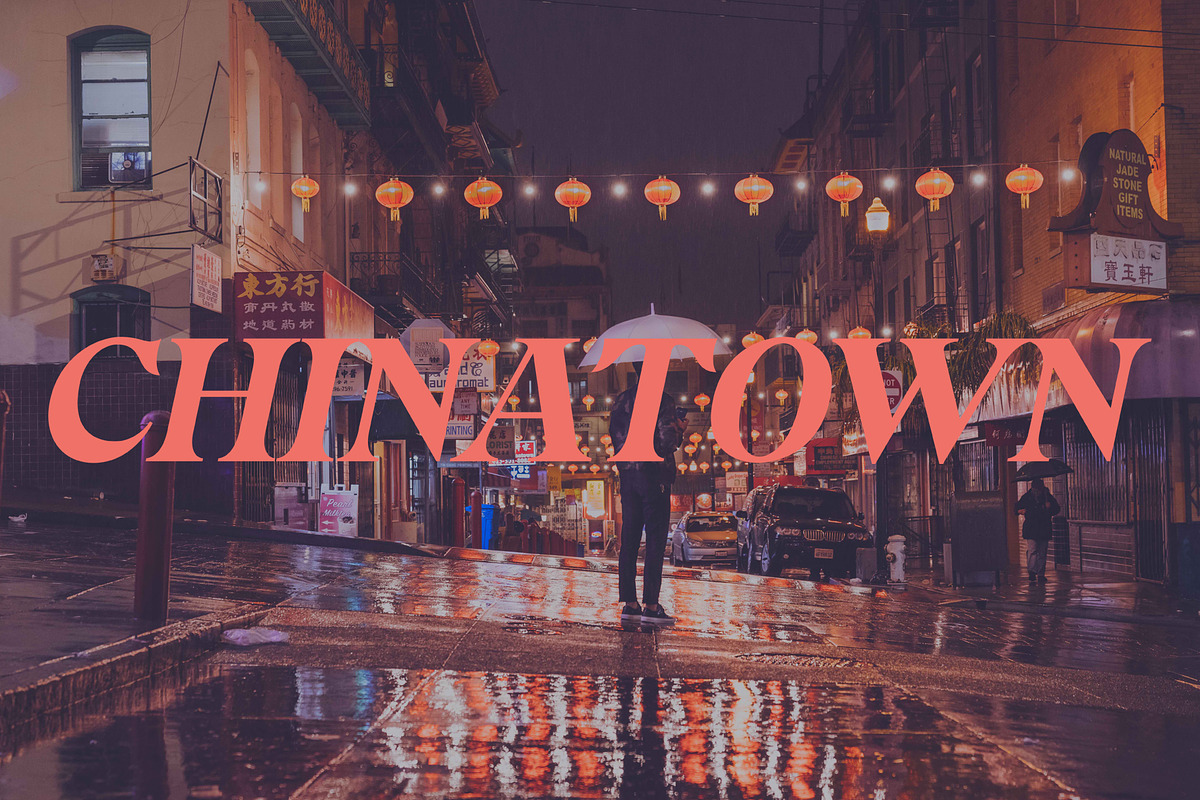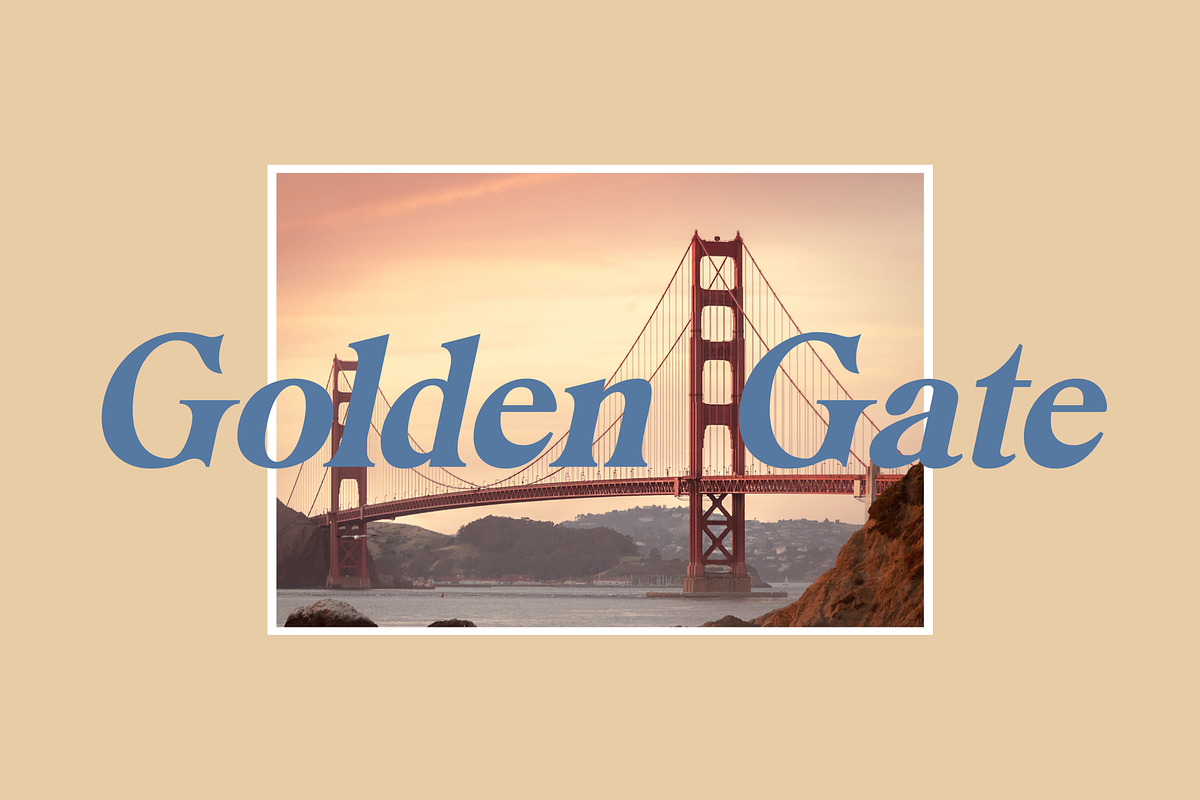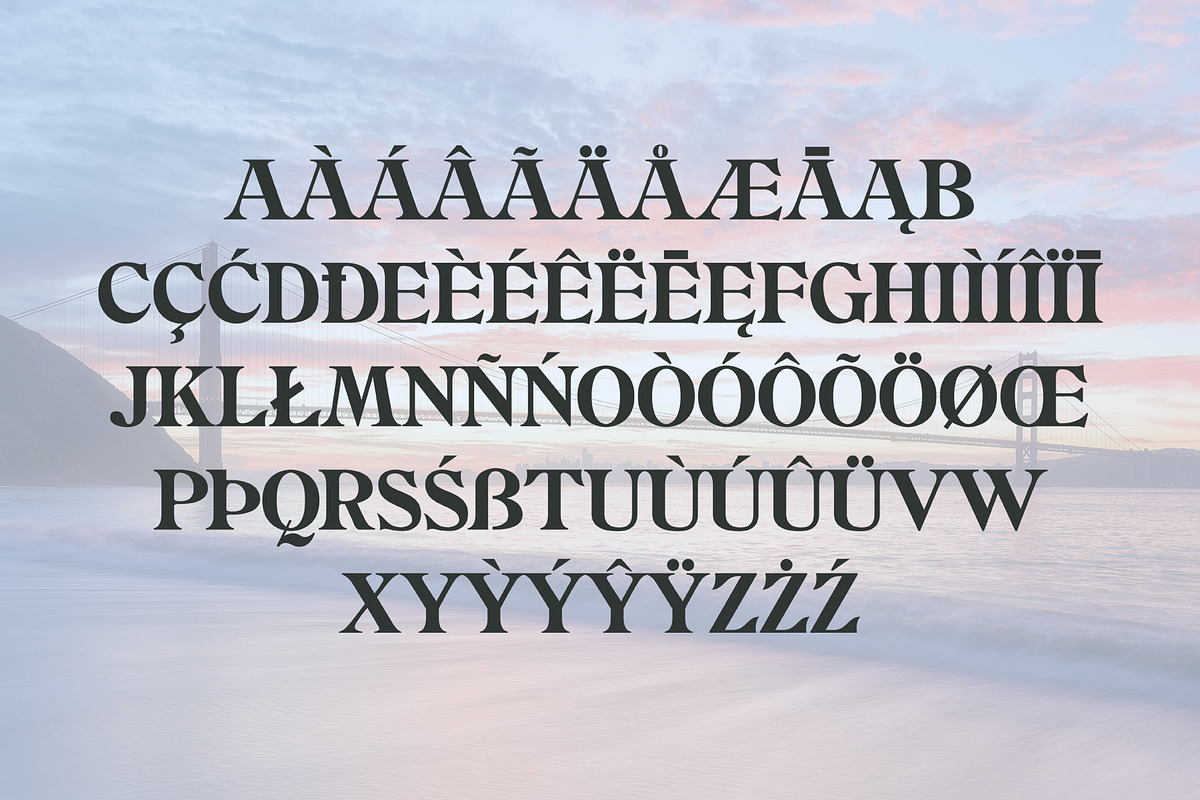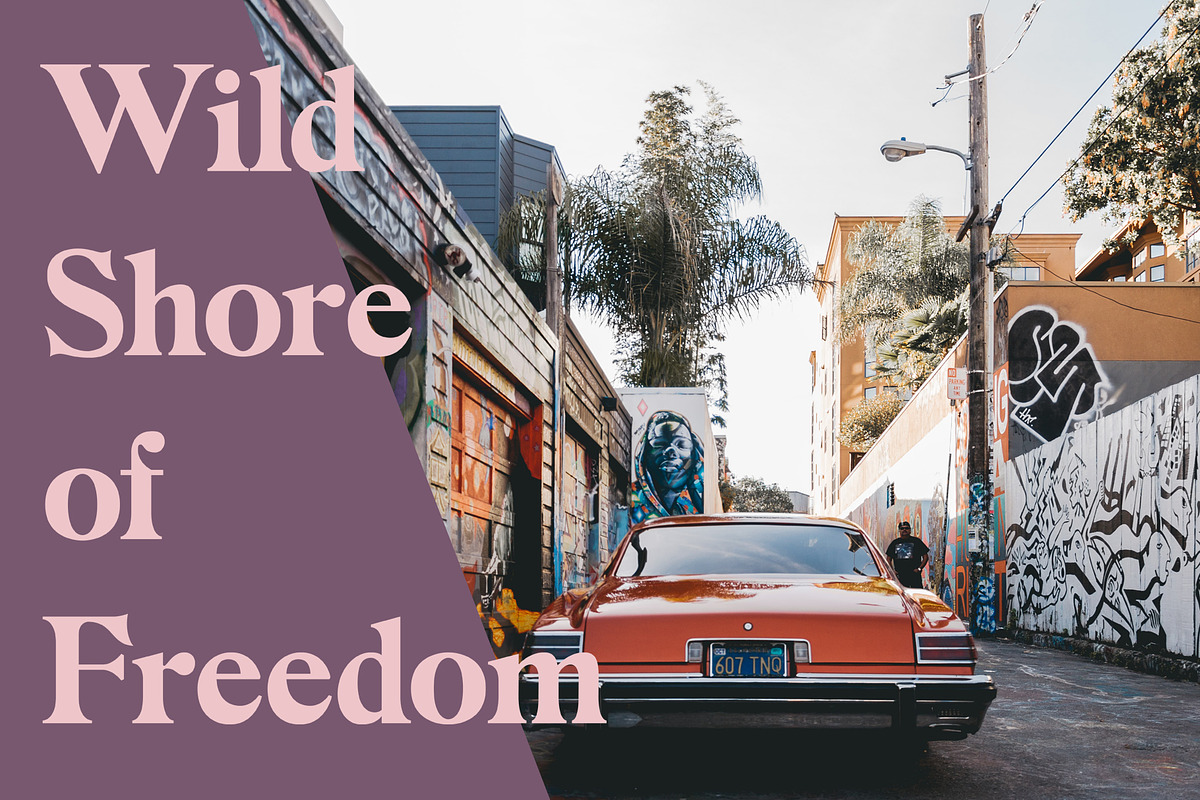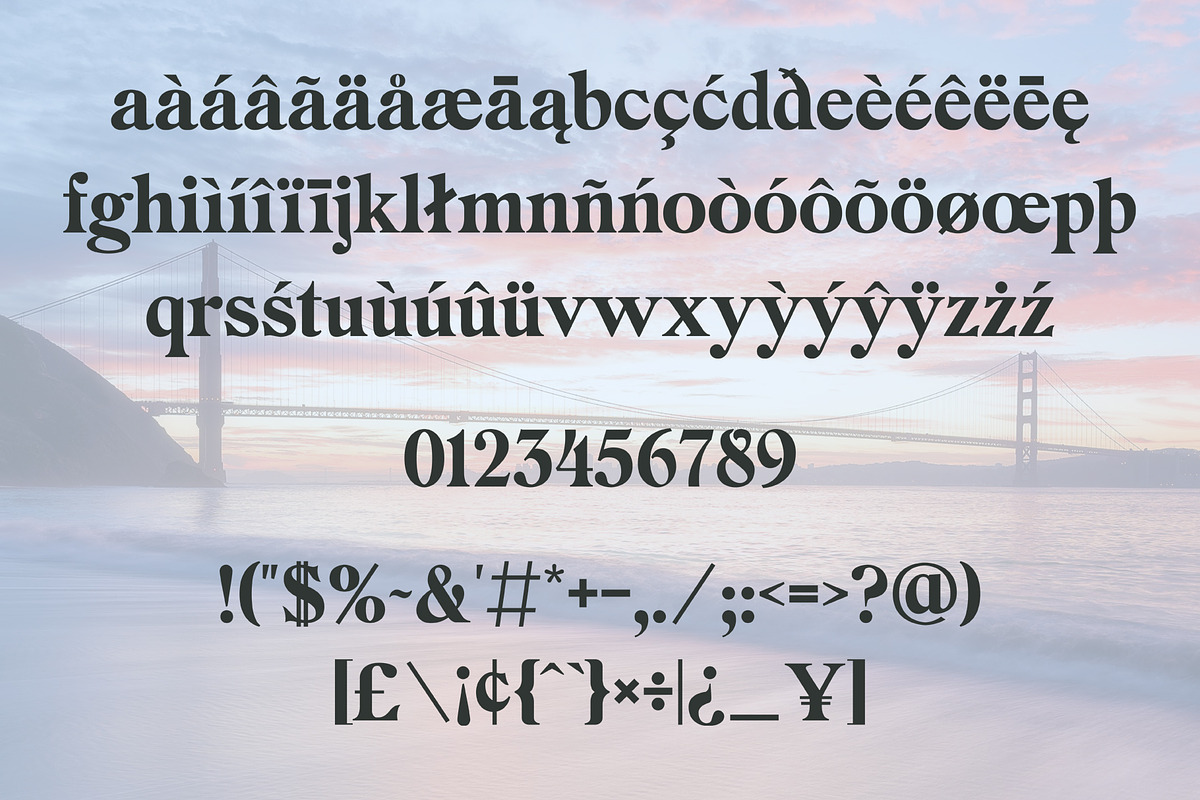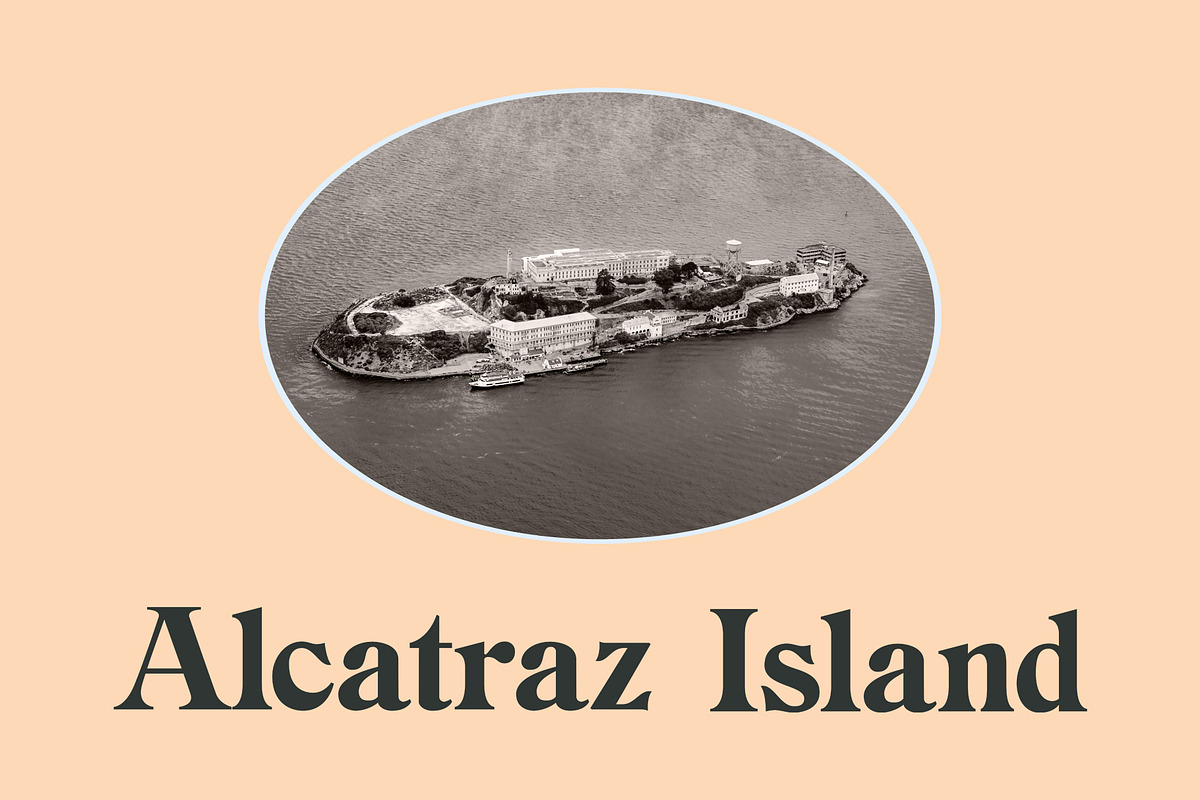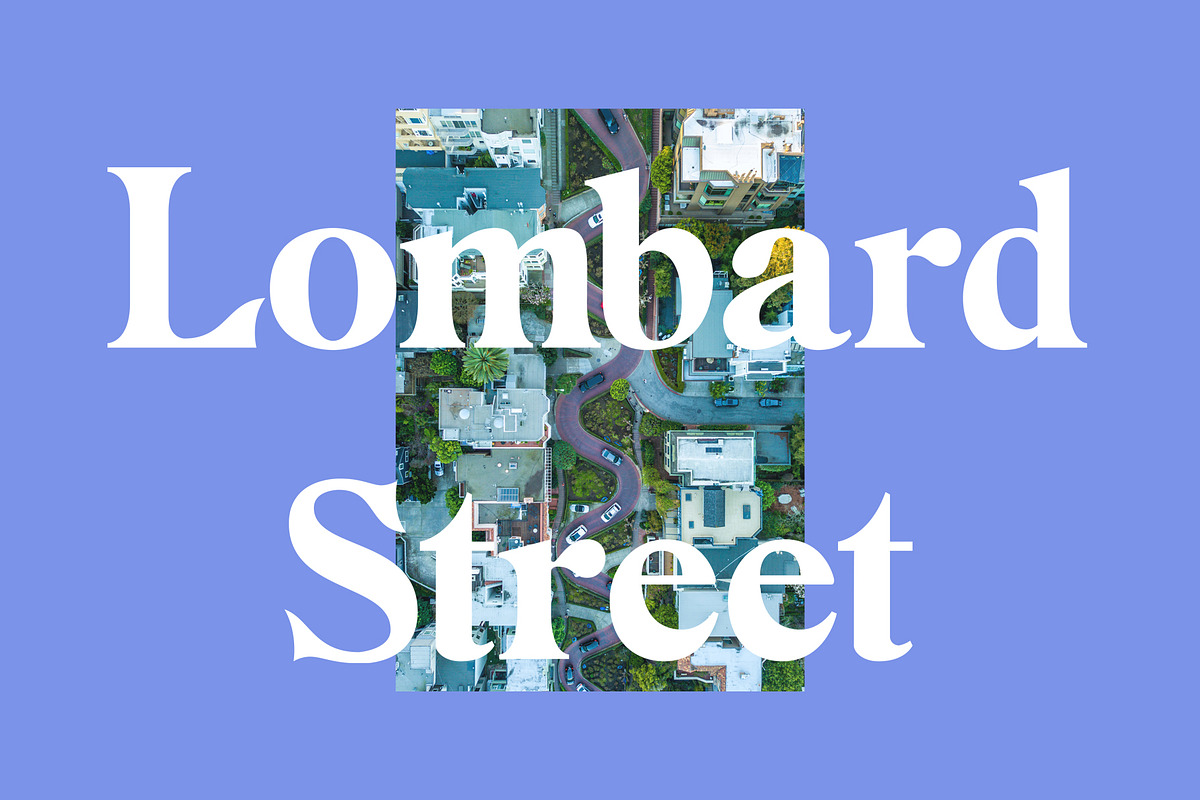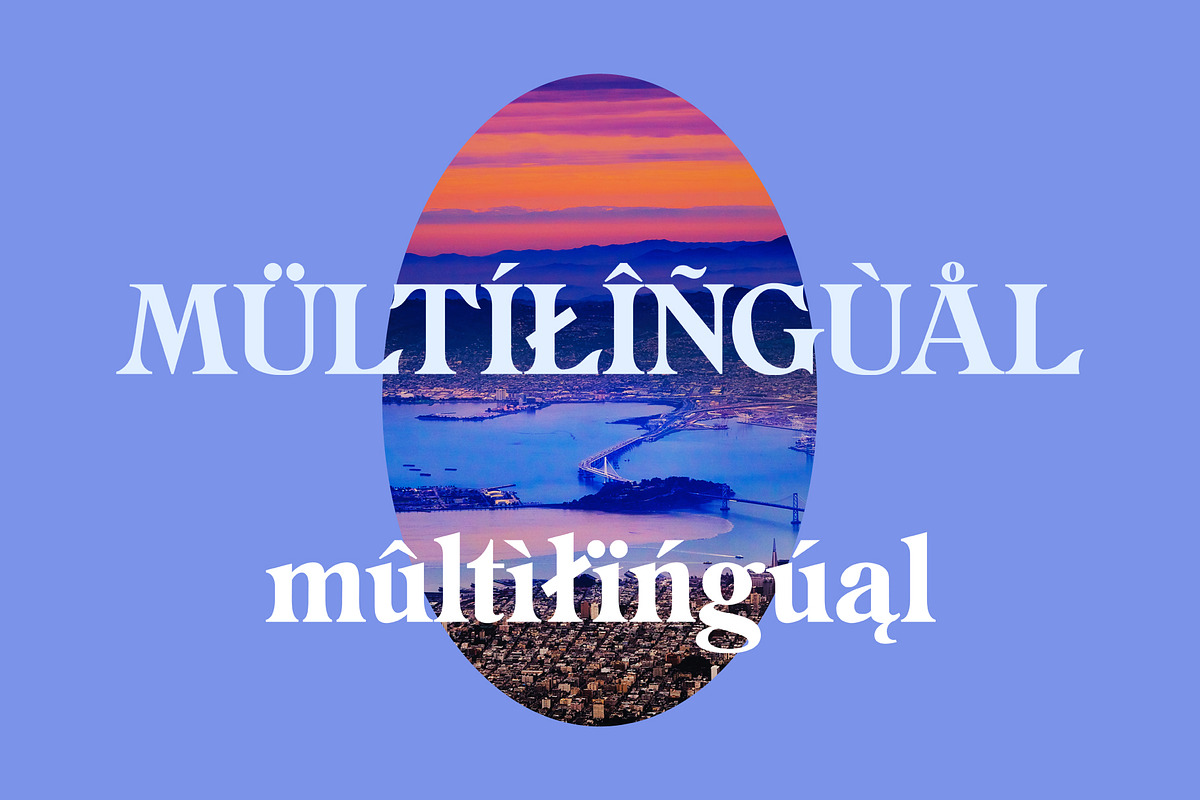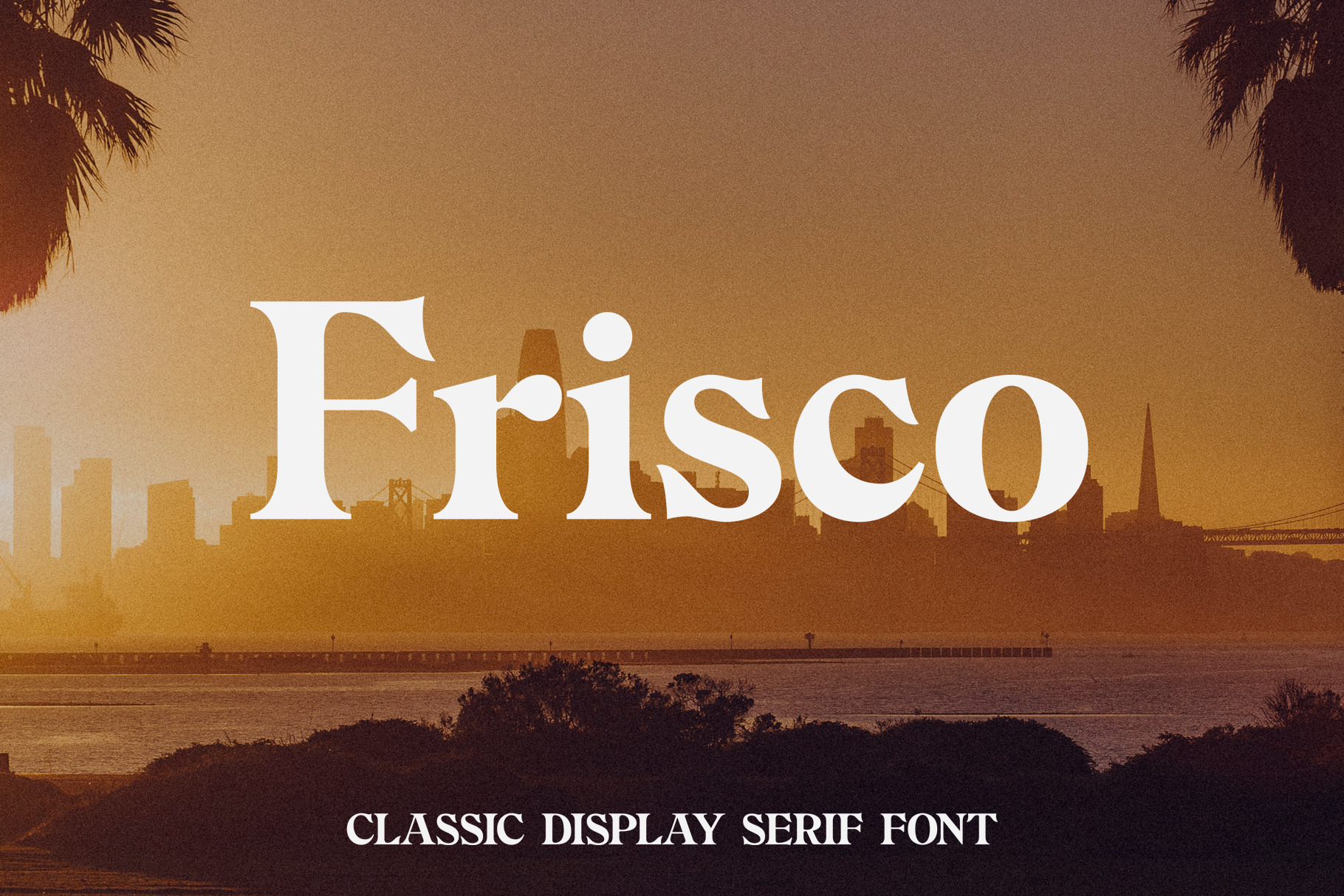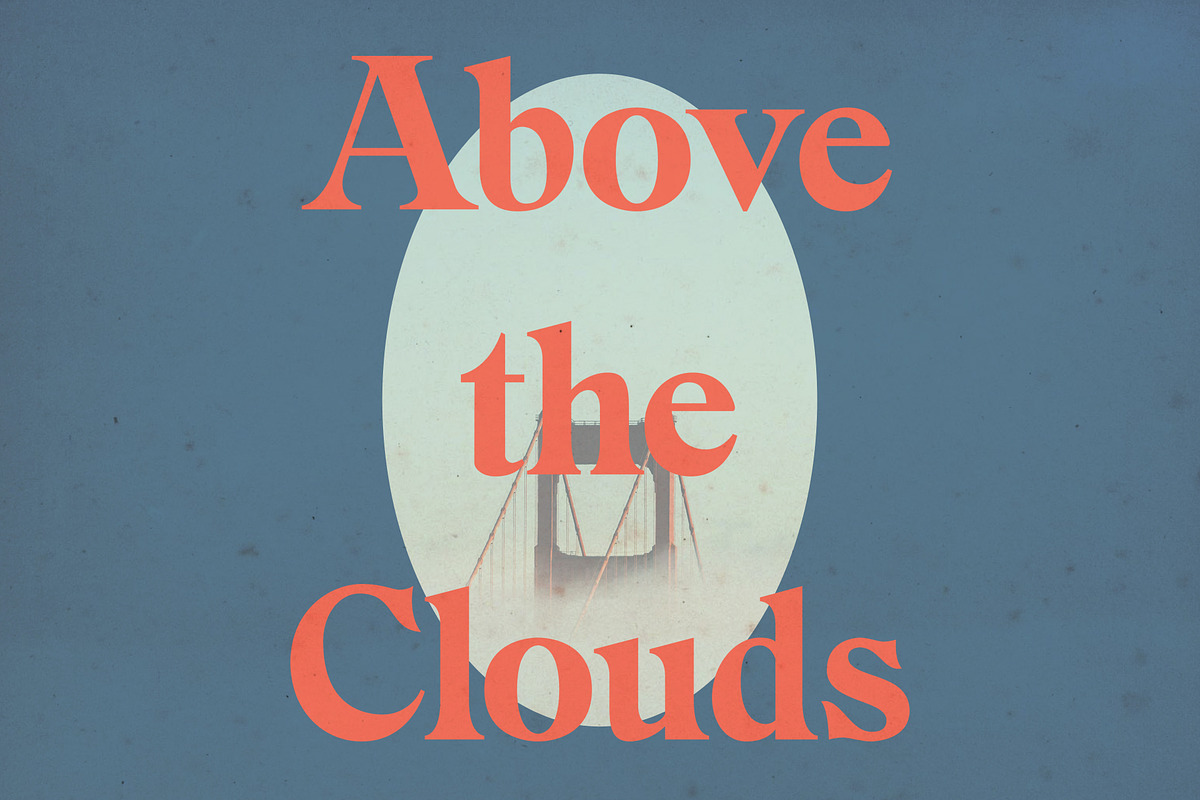
Frisco - Classic Serif Font
Frisco is a modern classic serif font. Frisco is inspired by the classic serifs from the first half of 20th century and touch of crazy shapes of the 60's. Frisco is great for logos, labels, headings, brandings, socials and more. Enjoy!
Language support: ÀÁÂÃÄÅĀĄÆ ÇĆ ÈÉÊËĘĒ ÌÍ Î Ï Ī Ð Ł ŃÑ ÒÓÔÕÖŒØ Ś ÙÚÛÜ ỲÝŶŸ Þ ß àáâãäåāąæ çć èéêëęē ìí î ï ī ð ł ńñ òóôõöœø ś ùúûü ỳýŷÿ þ